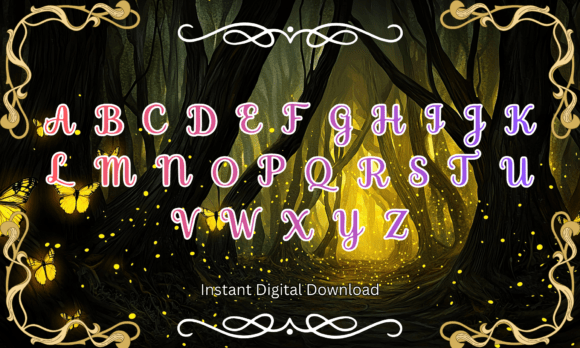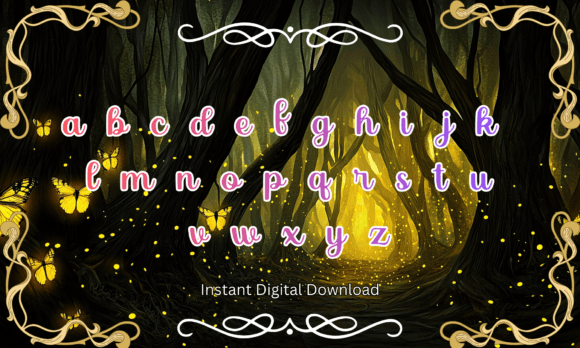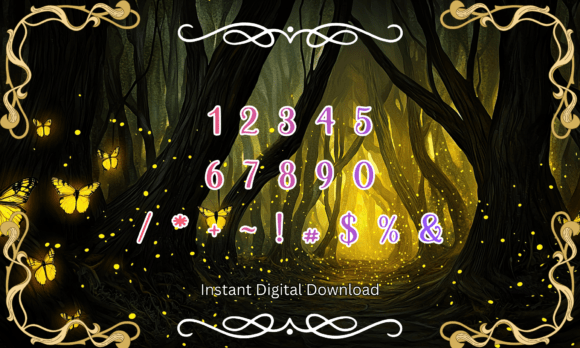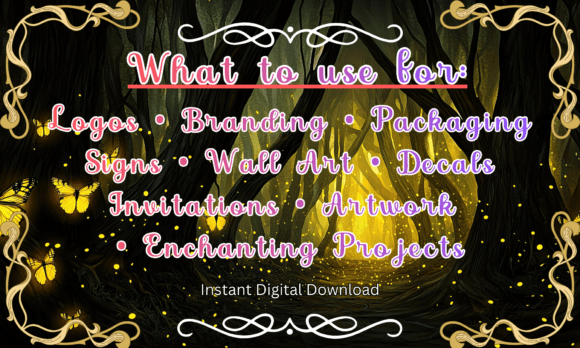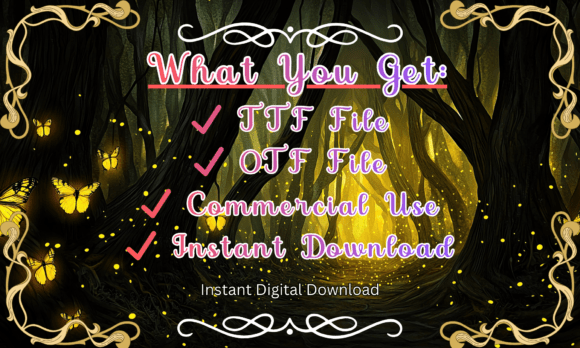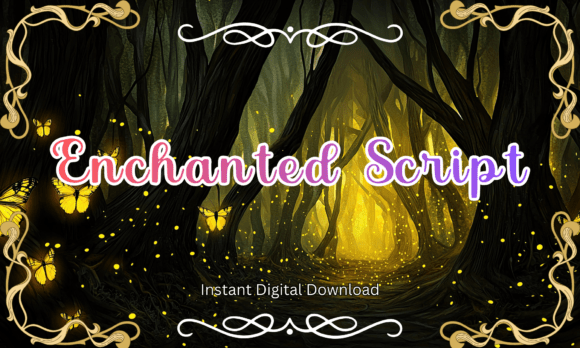
Discover the Whimsical Charm of Enchanted Script Font
Step into a glowing forest of magic with Enchanted Script — a whimsical, flowing script font inspired by fairy tales, enchanted woods, and soft fantasy aesthetics. With smooth curves and playful letterforms, this font feels dreamy, warm, and full of wonder. It’s perfect for adding a magical touch to creative projects, invitations, branding, and cozy fantasy designs.
The Enchantment of Enchanted Script
This Enchanted Script font features soft, rounded terminals and a rhythmic flow that feels both organic and otherworldly. It is a highly decorative Enchanted Script typeface that works beautifully when layered over ethereal backgrounds or nature photography. The gentle curves and fluid lines of this font evoke a sense of mysticism and fantasy, making it an ideal choice for designers and crafters looking to add a touch of magic to their work.
Perfect for Fantasy and Whimsical Designs
Use the Enchanted Script font for fantasy book covers, gaming interfaces, or themed event invitations where a touch of “fairycore” is required. The graceful curves of the Enchanted Script typeface ensure that your text remains legible while maintaining a high level of artistic flair. Whether you’re creating a fantasy novel, a game, or a whimsical event invitation, this font is sure to transport your audience to a world of wonder and enchantment.
Pairing Suggestions for a Magical Effect
This Enchanted Script font pairs exceptionally well with thin serif fonts to create a sophisticated, magical harmony. The contrast between the smooth, flowing script and the crisp, clean lines of a serif font creates a visually appealing combination that adds depth and elegance to any design. Try pairing Enchanted Script with a font like Playfair Display or Georgia for a stunning and magical effect.
Key Features of Enchanted Script Font
- Whimsical and flowing script font with smooth curves and playful letterforms
- Soft, rounded terminals and a rhythmic flow that feels both organic and otherworldly
- Highly decorative typeface that works beautifully when layered over ethereal backgrounds or nature photography
- Perfect for fantasy book covers, gaming interfaces, or themed event invitations where a touch of “fairycore” is required
- Legible and artistic with graceful curves that maintain a high level of artistic flair
Enchanted Script font is perfect for designers and crafters who want to add a touch of magic to their work. Whether you’re creating a fantasy novel, a game, or a whimsical event invitation, this font is sure to inspire your creativity. Use it to create a dreamy and enchanting atmosphere that transports your audience to a world of wonder and fantasy.
Tips for Using Enchanted Script Font
- Experiment with layering Enchanted Script over ethereal backgrounds or nature photography for a stunning effect
- Pair with thin serif fonts for a sophisticated, magical harmony
- Use for fantasy book covers, gaming interfaces, or themed event invitations where a touch of “fairycore” is required
- Play with font sizes and colors to create a whimsical and enchanting atmosphere
In conclusion, Enchanted Script font is a whimsical and flowing script font that is perfect for designers and crafters looking to add a touch of magic to their work. With its smooth curves, playful letterforms, and soft, rounded terminals, this font feels dreamy, warm, and full of wonder. Whether you’re creating a fantasy novel, a game, or a whimsical event invitation, Enchanted Script font is sure to transport your audience to a world of enchantment and fantasy.